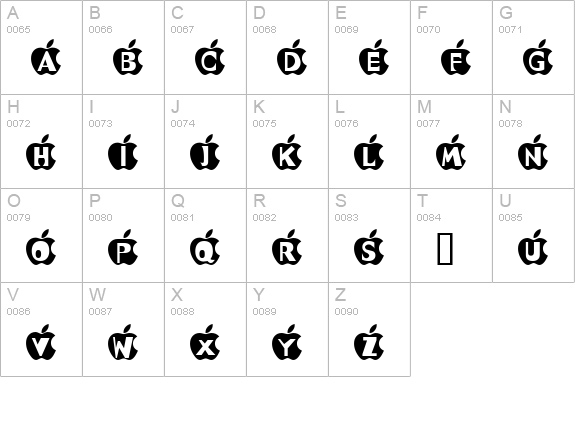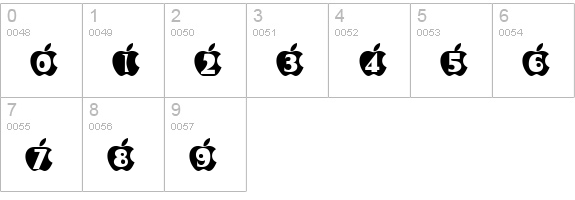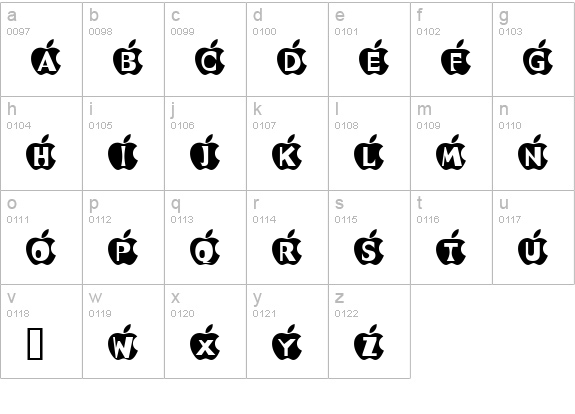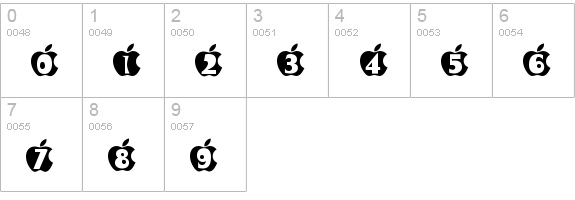
Apple Antics Font Details
Apple Antics is a whimsical and playful font that captures the essence of fun and creativity. Its rounded edges and unique letter shapes give a delightful touch to any design project. Whether you're working on a children's book, party invitation, or logo design, Apple Antics adds a charming and cheerful feel to your work. The best part? Apple Antics is completely free to download at FontsMarket.com. This means you can easily access this delightful font to elevate your designs without any cost. With its versatility and joyful aesthetic, Apple Antics is sure to bring a smile to your audience's face. Download it today and let your creativity run wild with this charming font!